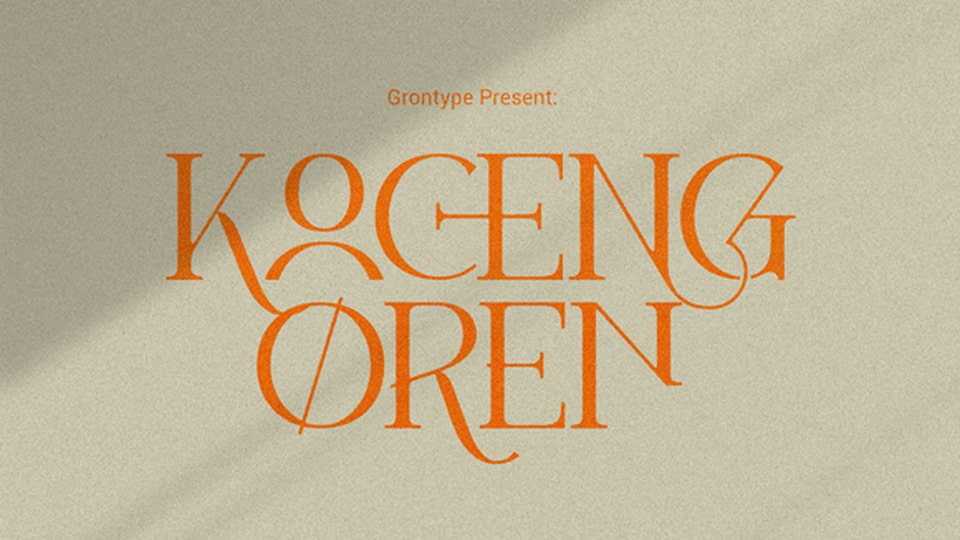
Download Koceng Oren font, a sophisticated serif typeface that exudes an air of elegance and refinement. With its slender strokes and graceful curves, this font epitomizes timeless beauty and classic charm.